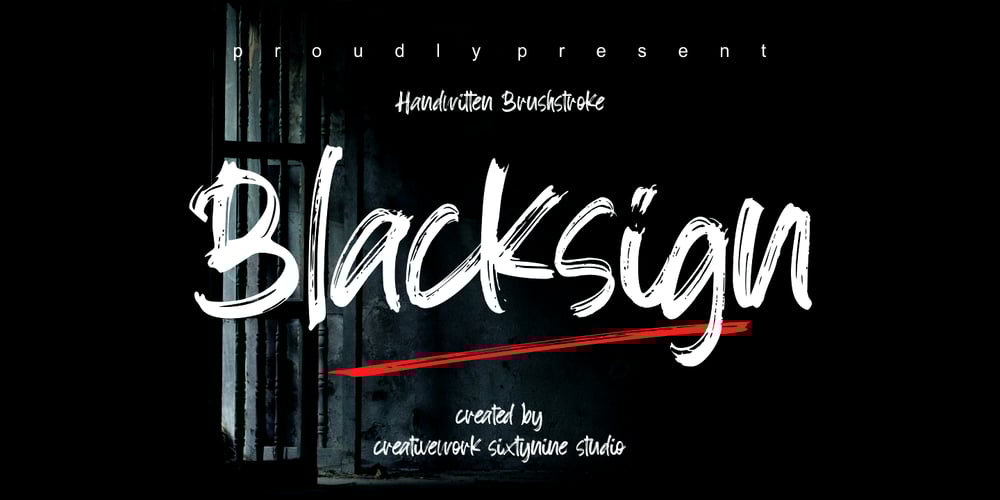
Blacksign
Blacksign font
Blacksign Font Family was designed by Daddi Daryawan and published by Creativework Studio. Blacksign contains 1 styles and family package options. Blacksign is a cursive brushed handwritten font, featuring a lovely style. No matter the topic, this font will be an incredible asset to your fonts’ library, as it has the potential to elevate any creation.